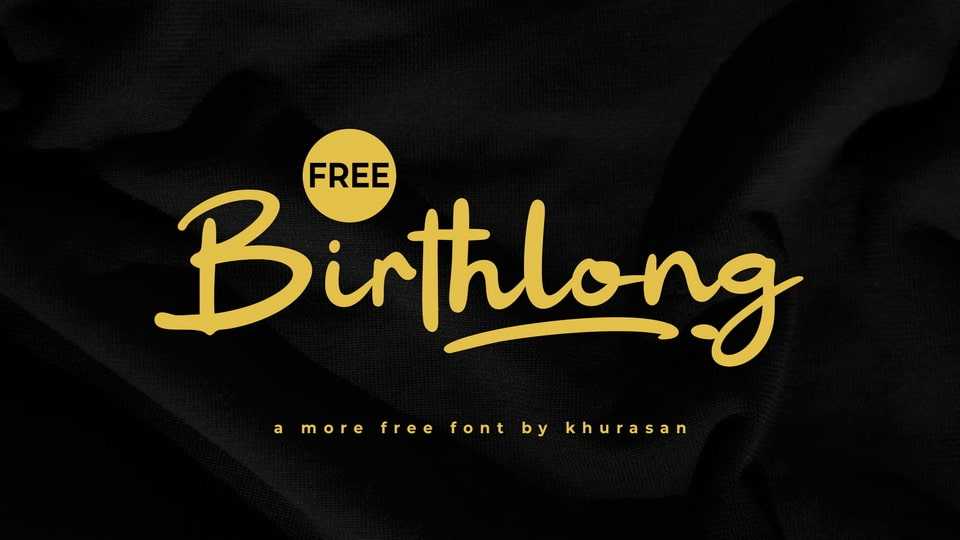
Download Birthlong font, a charming and expressive handwritten typeface that captures the warmth and spontaneity of a personal note with its smooth, flowing strokes and playful baseline variations.